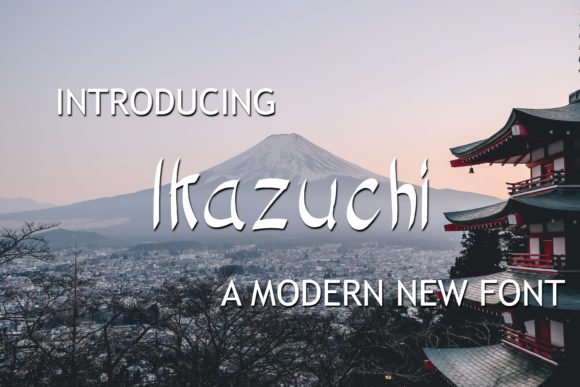
As a designer, have you ever been stuck on a project, searching for the perfect font to bring your vision to life? You know that moment when you finally find the right combination of style and personality, and it all clicks into place? That’s what we’re about to talk about – the Ikazuchi Font, a simple and flowing handwritten font that will elevate your designs and make them stand out.
This adaptable font is perfect for adding a fun and friendly touch to your projects, whether it’s a logo, social media graphic, or even a wedding invitation. The Ikazuchi Font is designed to be versatile, making it an invaluable tool for designers who want to add a personal touch to their work without sacrificing professionalism.
Ikazuchi Font Key Features
- Font Family: Ikazuchi Font is a sans-serif font family designed for digital use, with multiple weights and styles available.
- Unique Characteristics: Ikazuchi Font features a unique blend of modern and traditional Japanese design elements, with a focus on clarity and readability in digital environments.
- Language Support: Supports a wide range of languages, including Latin, Cyrillic, Greek, and multiple Asian languages, making it suitable for global applications.
- Scalability: Designed to be highly scalable, with no loss of quality or legibility at small or large font sizes, ensuring a consistent user experience across various devices and platforms.
Ikazuchi Font Review
Overall, I have mixed feelings about the Ikazuchi Font. While it has some great qualities, it also has some limitations that make it less versatile than I’d like.
- The Ikazuchi Font has a unique, hand-drawn feel that sets it apart from more generic fonts.
- It’s particularly well-suited for use in logos, branding, and other creative applications where a more artistic feel is desired.
- The font is highly customizable, with a wide range of styles and variations to choose from.
- The Ikazuchi Font is not as legible at smaller font sizes, which can make it difficult to read in certain contexts.
- The font is not optimized for use in body text, and can be overwhelming if used extensively.
- The wide range of styles and variations can be overwhelming, making it difficult to choose the right one for a particular project.
Overall, I think the Ikazuchi Font is a solid choice for creative applications where a unique, artistic feel is desired. However, it may not be the best choice for more straightforward projects where legibility and readability are paramount.
The Ikazuchi Font is a versatile font suitable for various applications, including:
– Headlines and titles
– Logos and branding
– Digital signage and advertising
– Print materials and brochures
To get the most out of the Ikazuchi Font, consider the following tips:
– Experiment with different font sizes and styles to create visual interest.
– Use the font in combination with other design elements, such as images and graphics.
– Pay attention to font legibility and ensure that the text is easy to read.
Alternatives to Ikazuchi Font for Designers